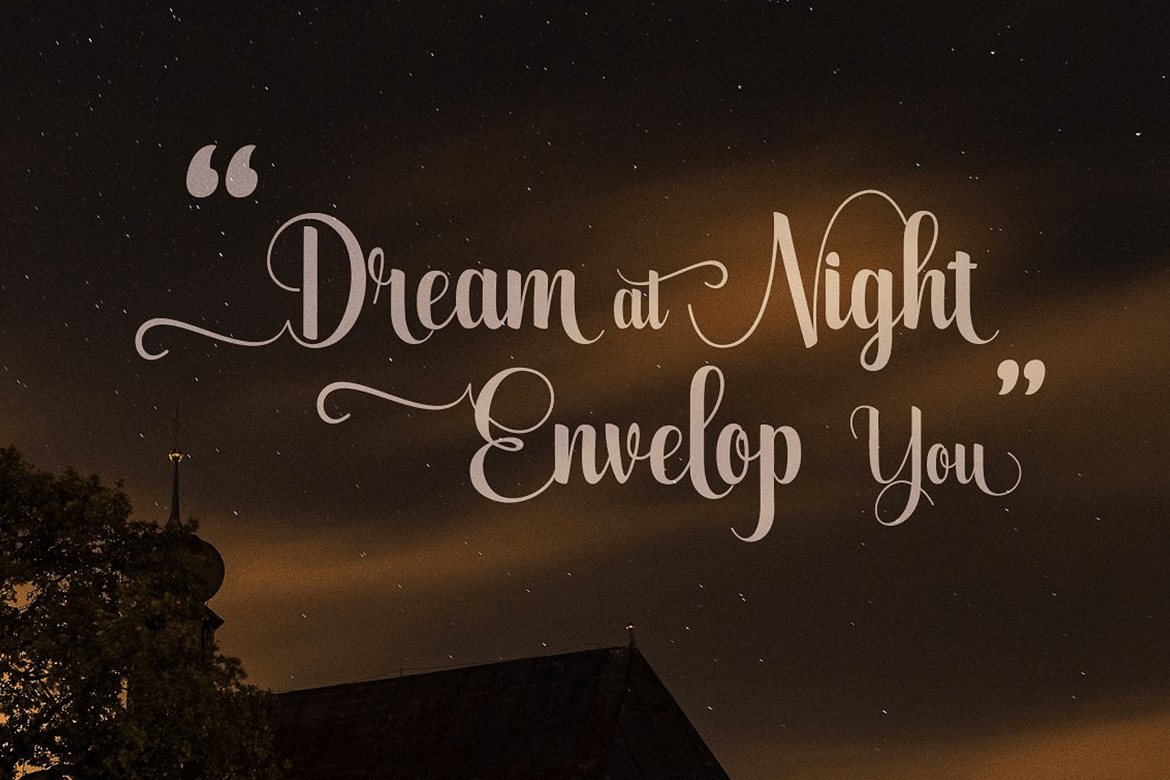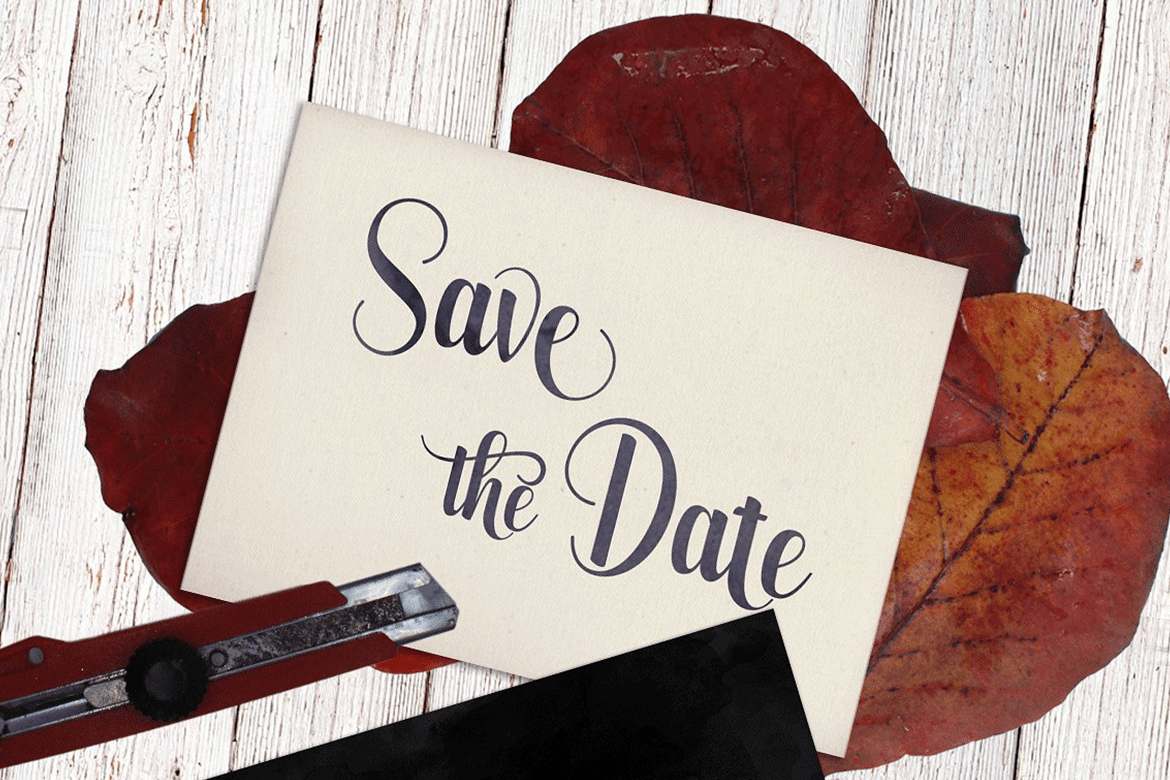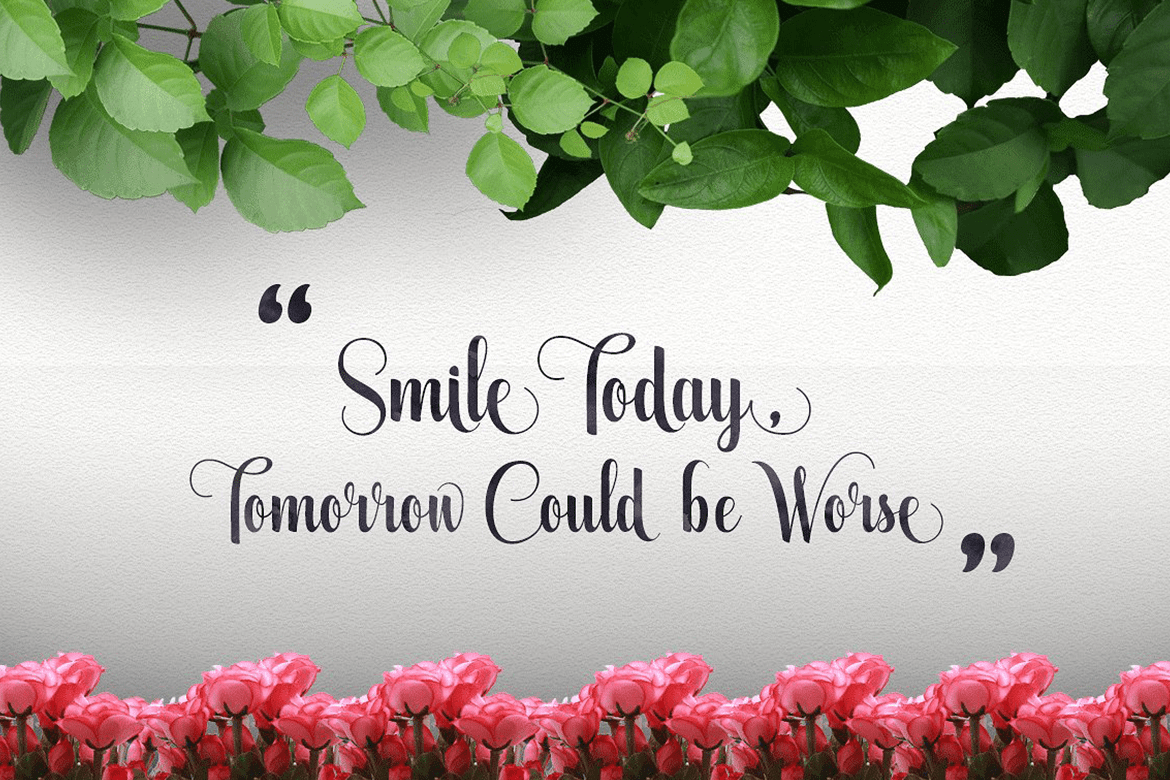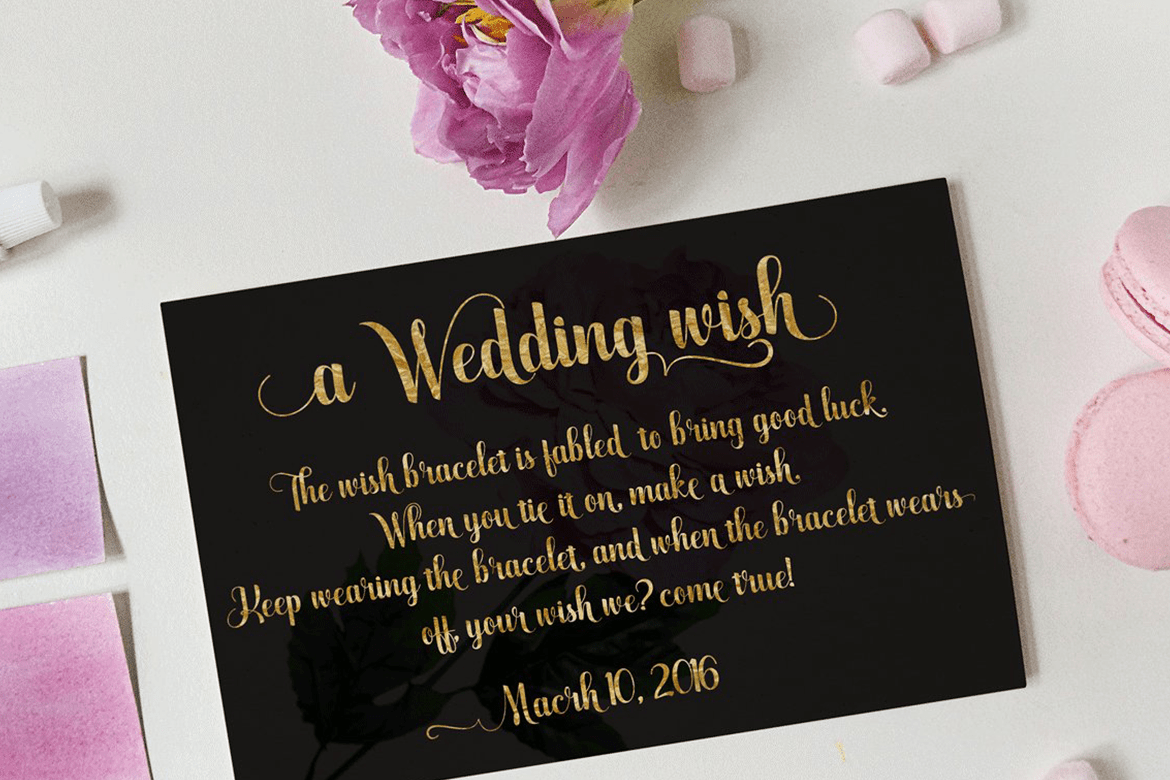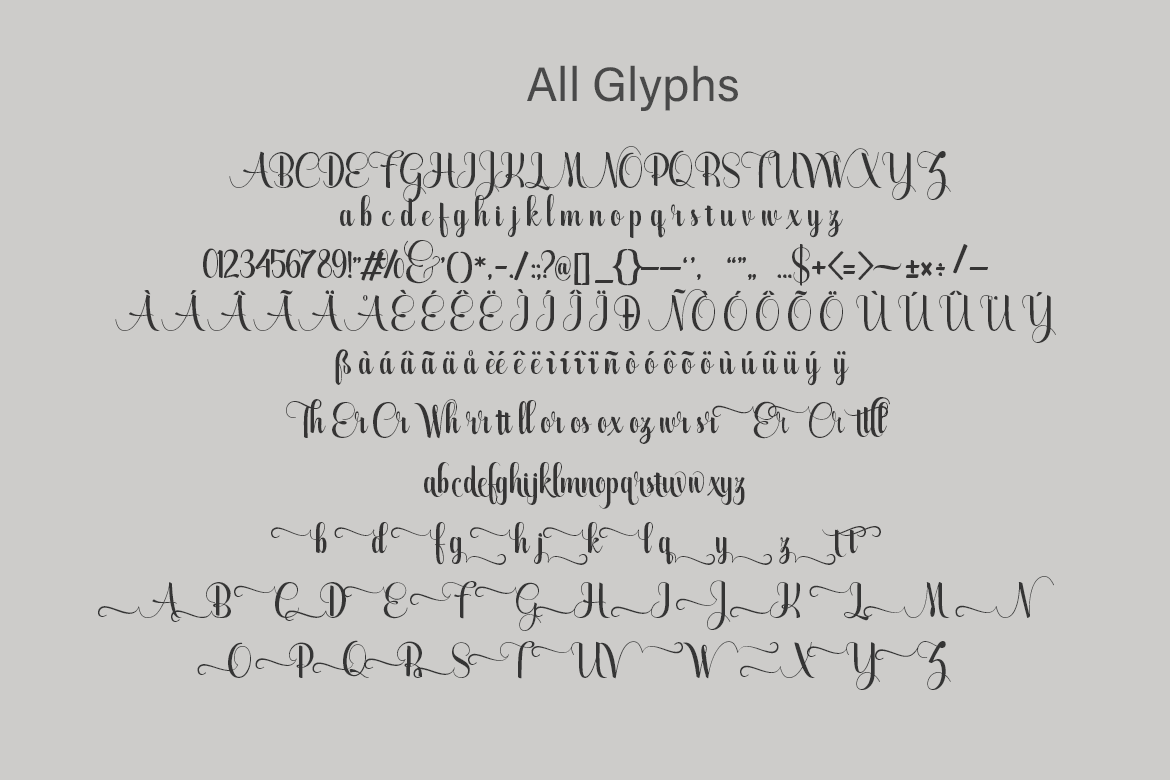
Wolfs Bane Pro
Font Family by Groen Studio
Wolfs Bane Pro is a brush script that is beautiful and unique, it is a model of modern calligraphy typefaces, in combination with a calligraphy writing style.
The Features of this fonts is;
- Contextual swashes
- Contextual Alternates
- Standart ligatures
- Discretionary ligatures
- Initial Forms
- Terminal Forms
- Stylistic Alternates
- Stylistic sets
- PUA Unicode (Private Use Areas)